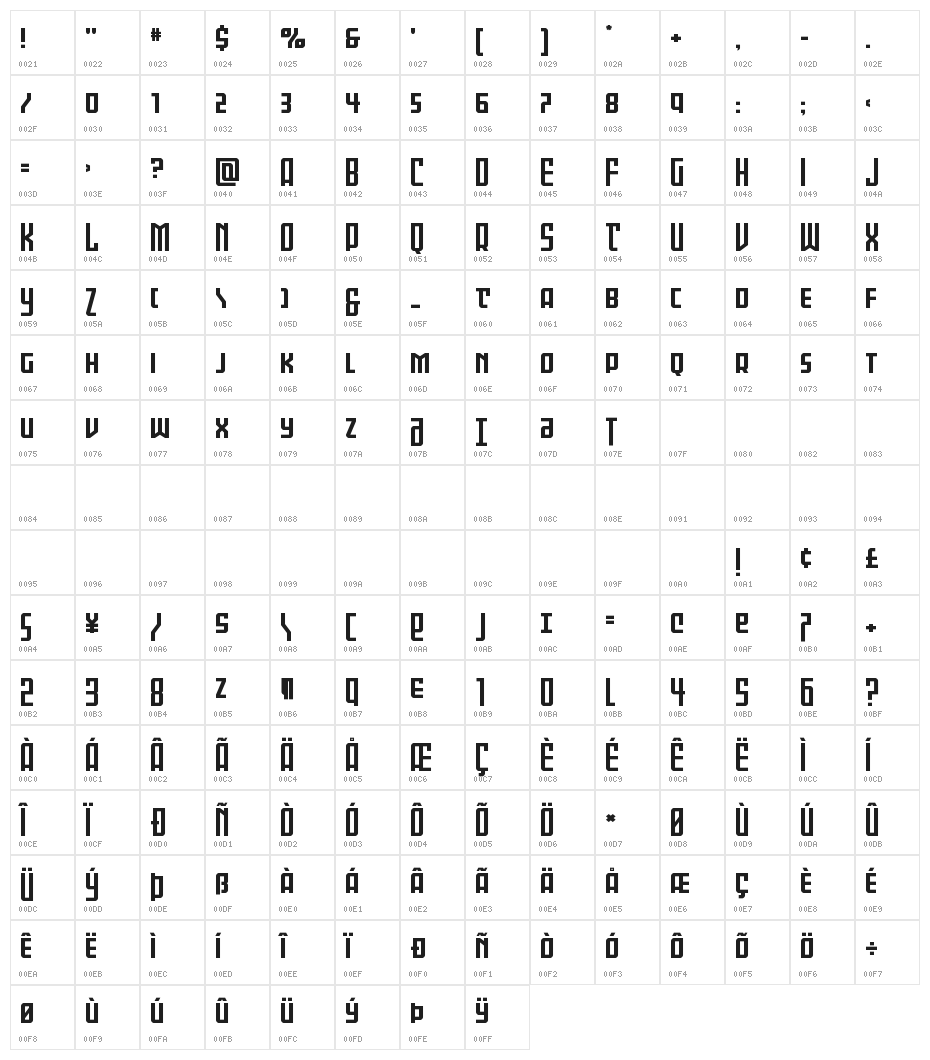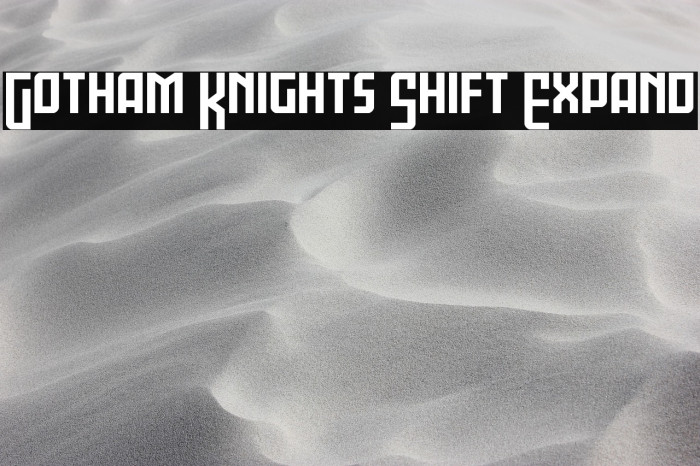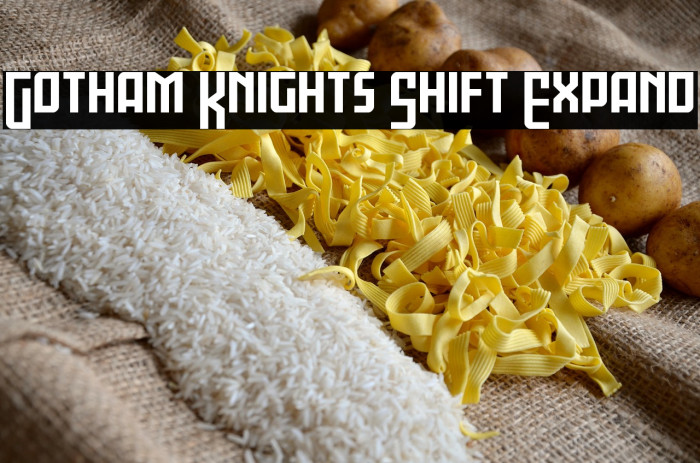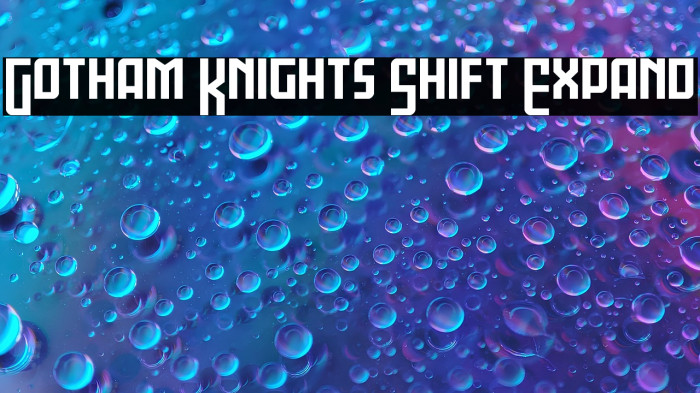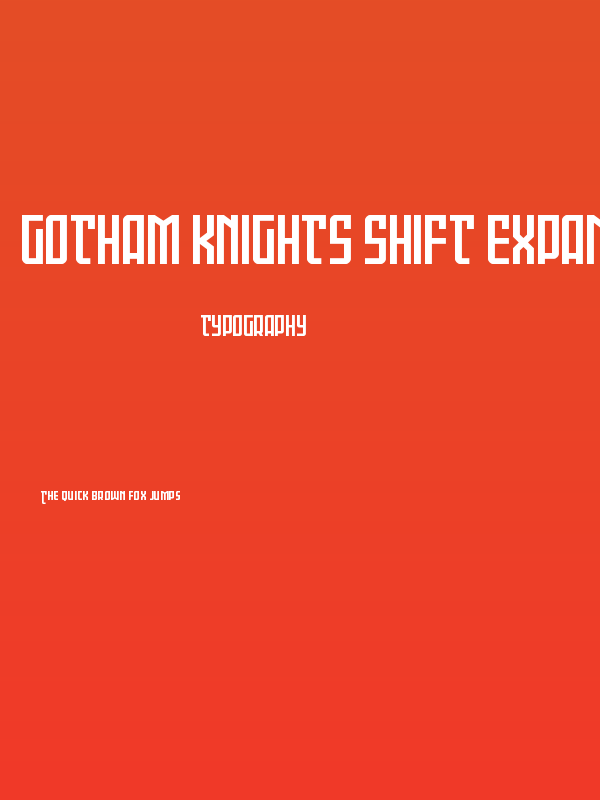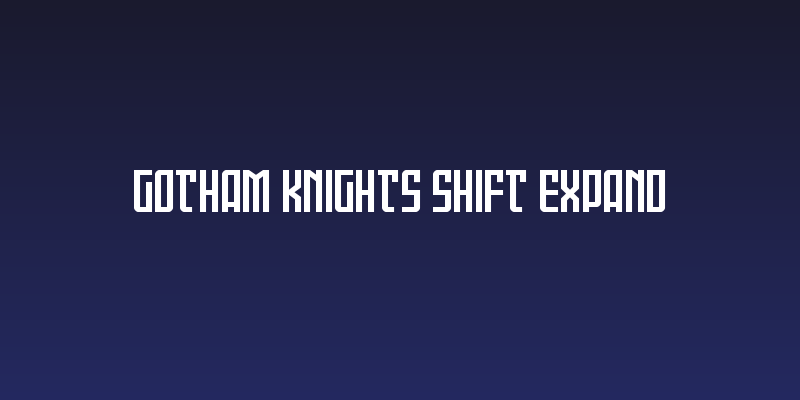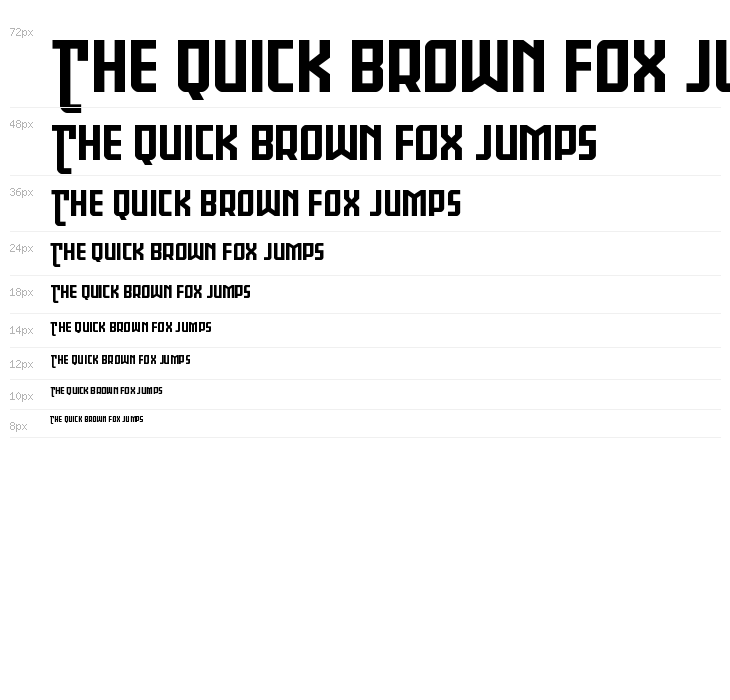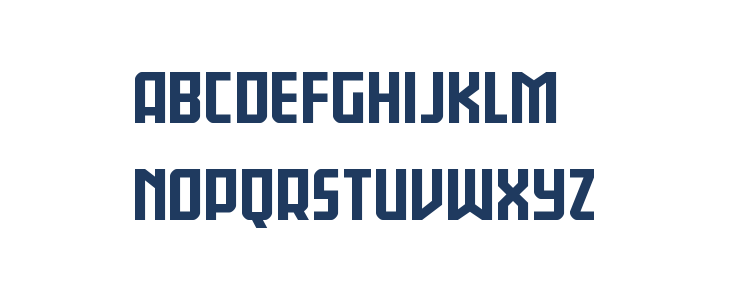
Gotham Knights Shift Expand Font
Gotham Knights Shift Expand Description
This font features a bold, geometric design with a strong presence. The characters are constructed with sharp angles and straight lines, giving it a modern and futuristic appearance. The uppercase letters are particularly striking, with a uniform height and width that creates a cohesive look. The numerals and special characters maintain the same boldness and geometric style, ensuring consistency across all elements. The font's design is clean and uncluttered, making it highly legible even at smaller sizes. Its unique style makes it suitable for projects that require a strong visual impact.